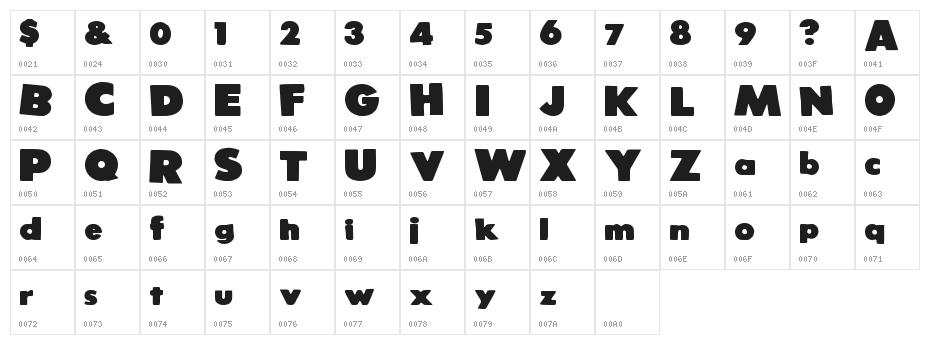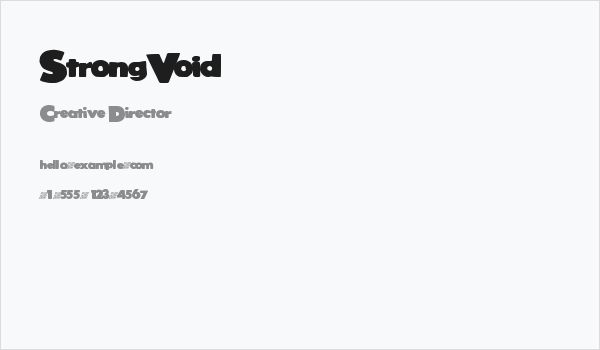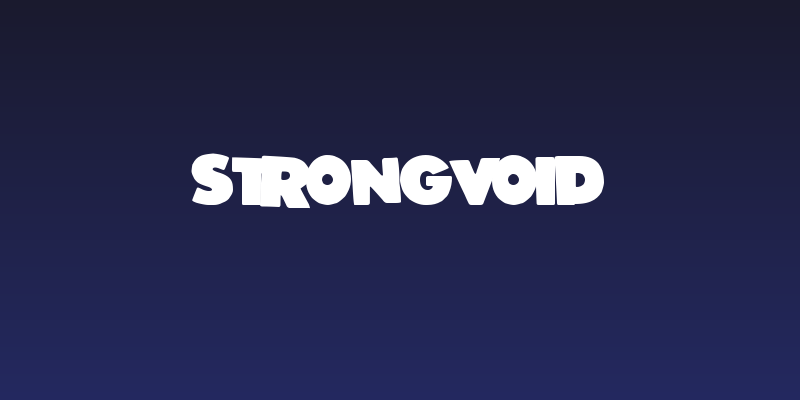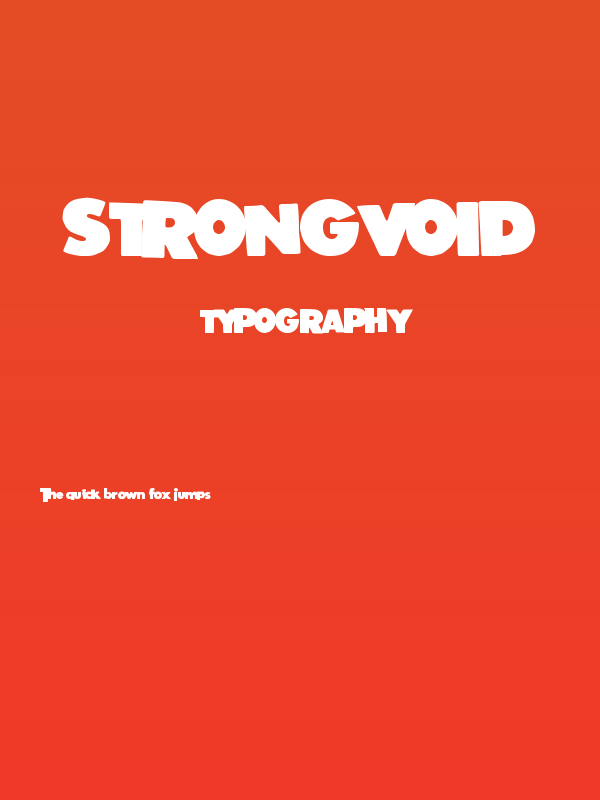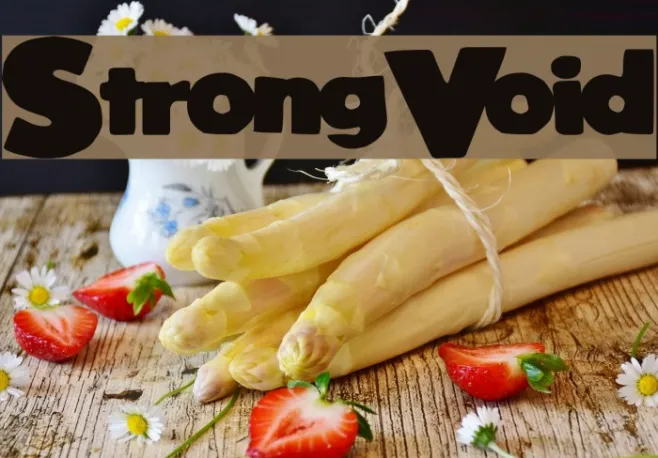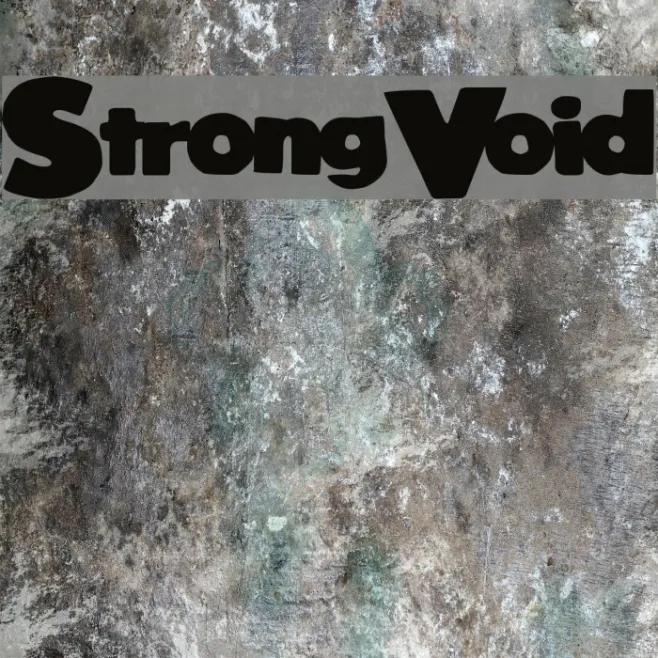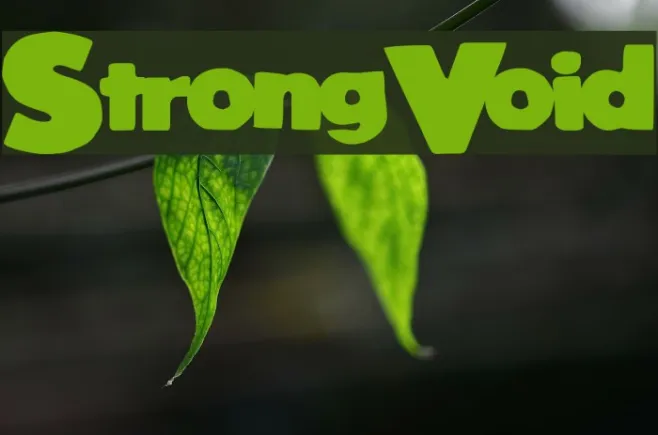
StrongVoid Font
StrongVoid Description
This font features bold, rounded characters with a playful and chunky appearance. The letters are heavily weighted, creating a strong visual impact. The uppercase and lowercase letters maintain a consistent style, with smooth curves and a slightly compressed form. The numbers follow the same bold and rounded design, ensuring uniformity across all characters. Special characters like $, ?, &, %, !, #, *, and = are also included, each maintaining the font's distinctive style. This font is ideal for projects that require a fun and eye-catching typeface.
| Proposed Projects | Ideal for children's books, playful branding, posters, and event invitations. |